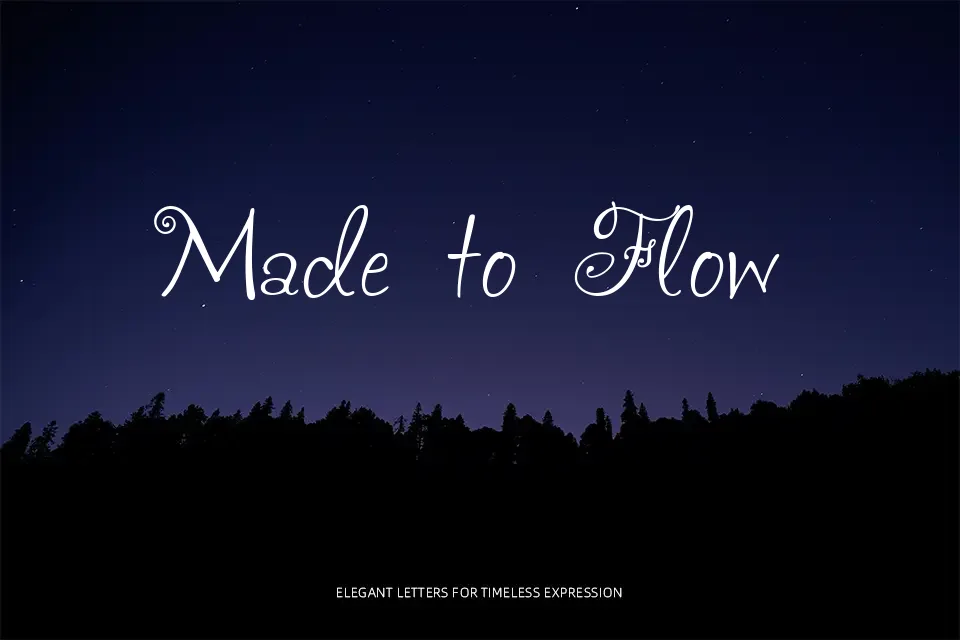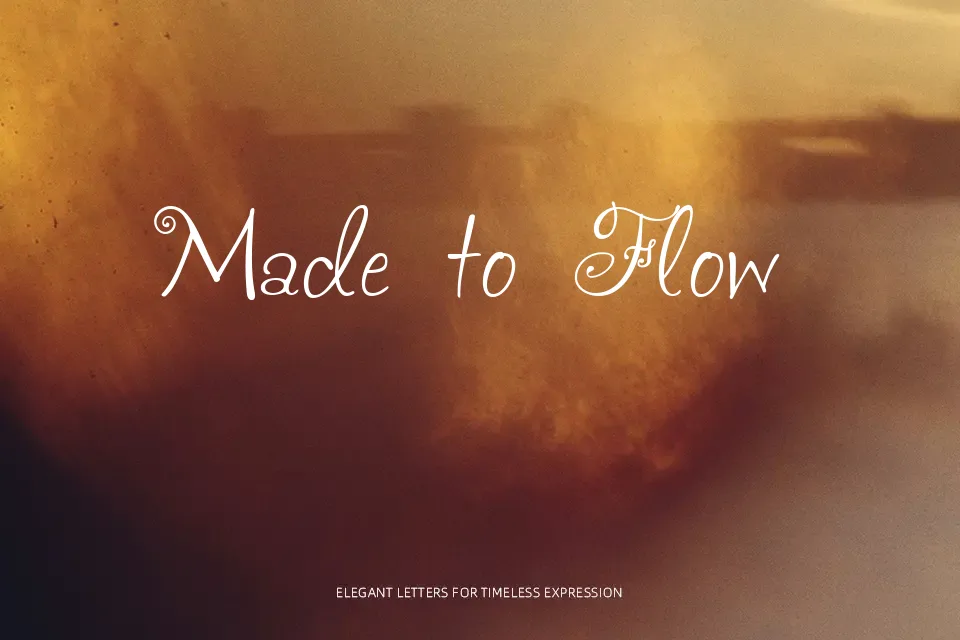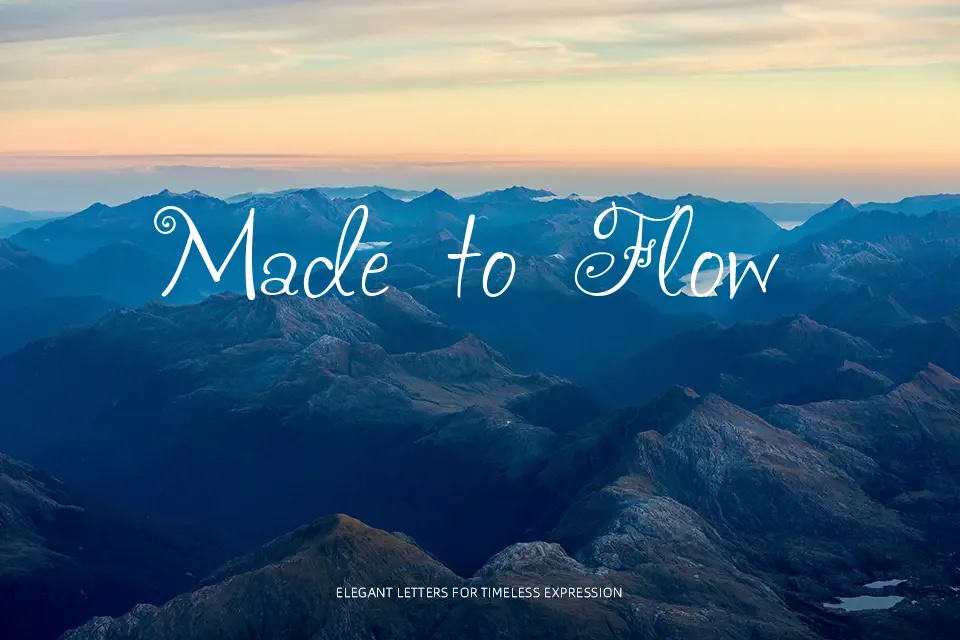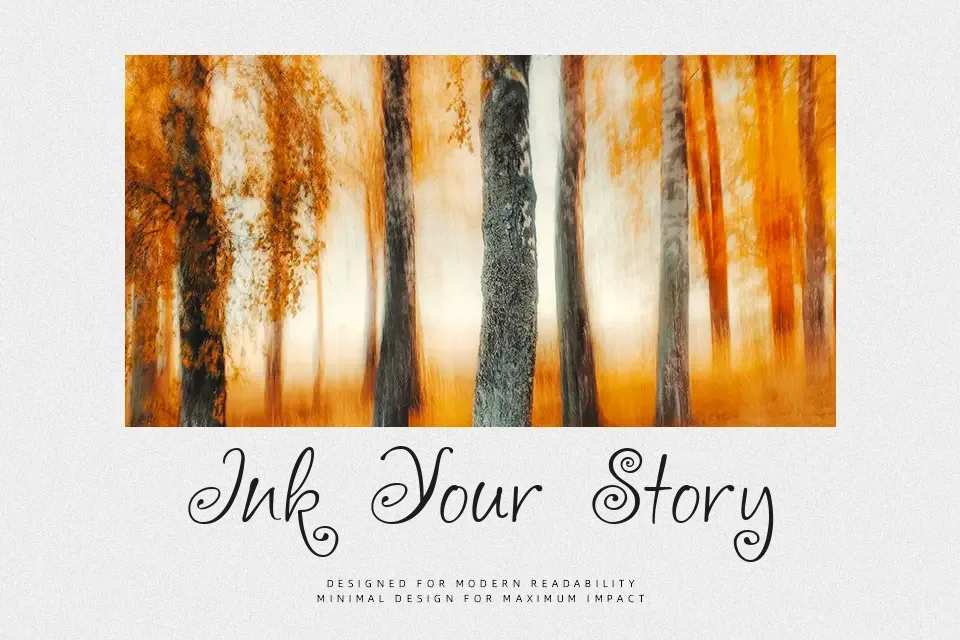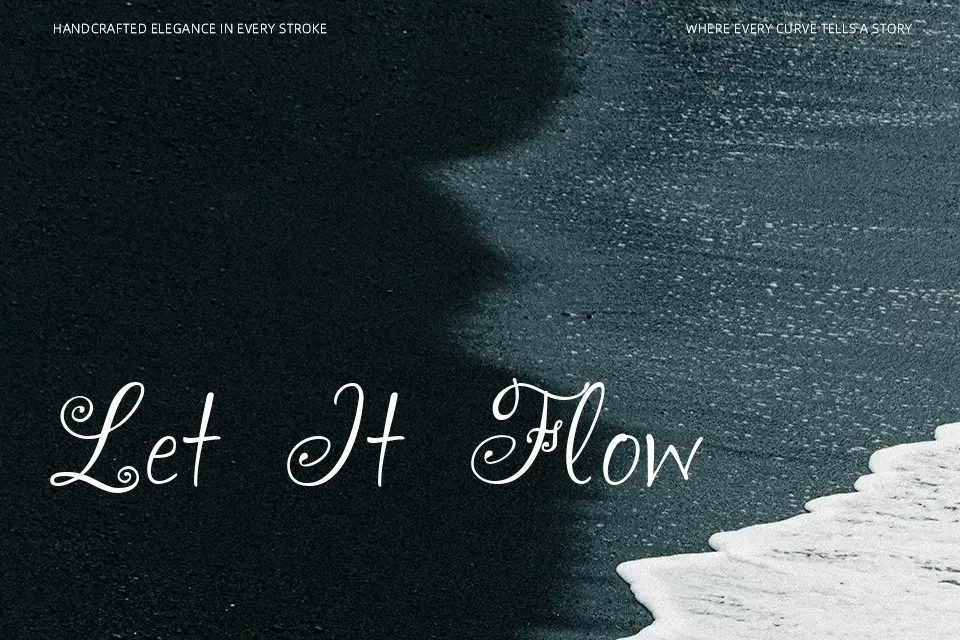
Aka Frivolity Font
Aka Frivolity leans into curly, lightweight strokes with abundant swirling flourishes, giving each letterform a spirited, almost hand-drawn quality. The contrast between its thin hairlines and more expressive terminals creates a sense of movement that reads as festive and refined at the same time. It works well as a title font for boutique product labels, wedding stationery headers, or vintage-inspired social media graphics — contexts where a single line of text needs to carry personality. That said, its decorative nature becomes a liability at small sizes; legibility drops noticeably below 18pt, and in paragraphs it quickly turns chaotic. It pairs better with a neutral sans-serif body font than it does standing alone across multiple lines.
Best For:- Wedding stationery and invitation headers
– Boutique packaging and handmade product labels
– Vintage-style greeting card titles
– Whimsical social media quote graphics
Not Ideal For:- Body text or multi-line copy
– Corporate or professional business documents
– Small-scale print where fine strokes lose clarity
– Digital UI labels or navigation text
Perfect for branding, invitation, and poster, with a elegant and decorative style.